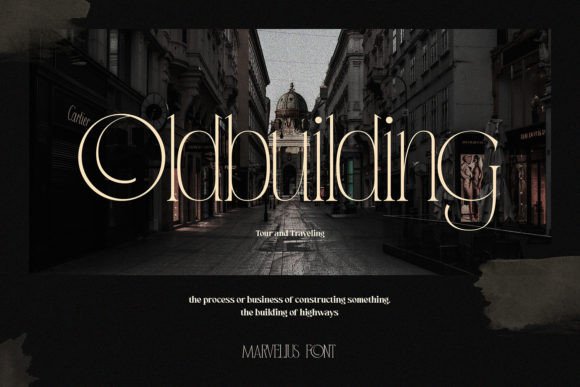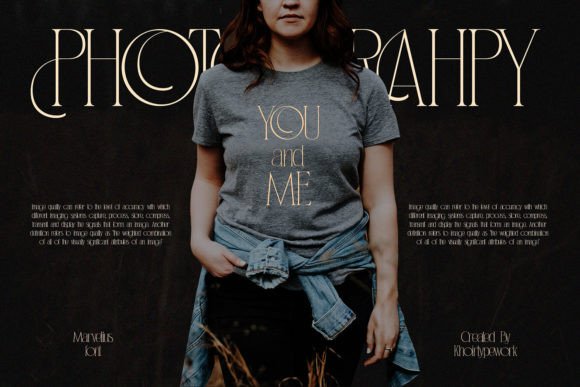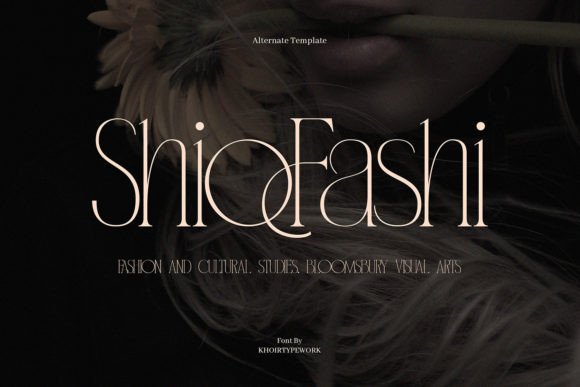
Introduction to Marvelius Font
Marvelius is a stylish and aesthetically pleasing serif font.
Sophisticated, elegant yet still modern, this font is perfect for creating chic and fashionable designs This font is PUA encoded which means you can access all the glyphs and ligatures with ease.
Key Features of Marvelius Font